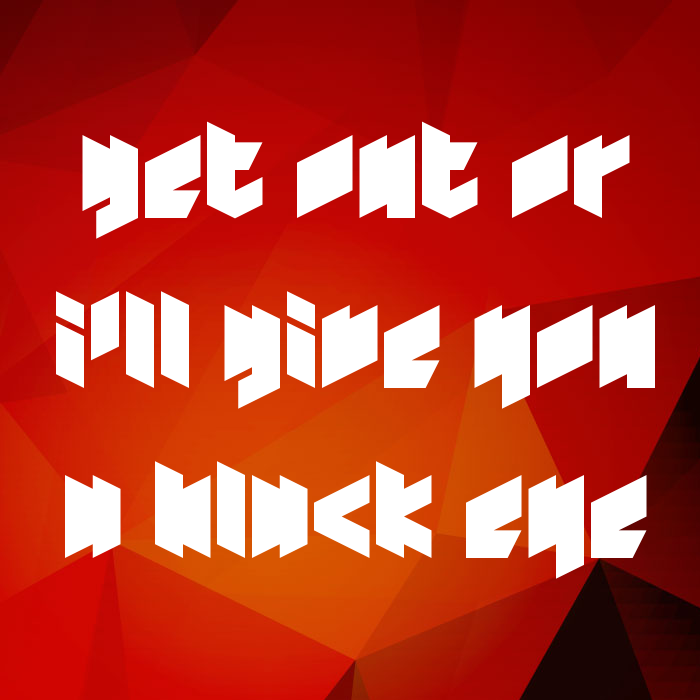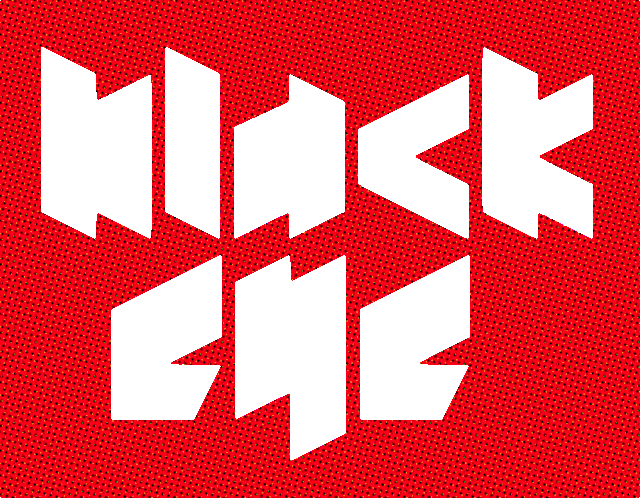
It reminds me of a saw blade
Strong font reminiscent of Cablecomputer's work. Well done!
This creates beautiful dynamic zig-zag lines!
I'm with the people, but I think you can try this alternative "a":
YES!
also i don't really see how that looks like an a but i put it as an alternate at æ
I'm with the elmo: it would be better to b, d, h, l, y ...
A couple letters could use some tweaks, but this is a great looking unique face!